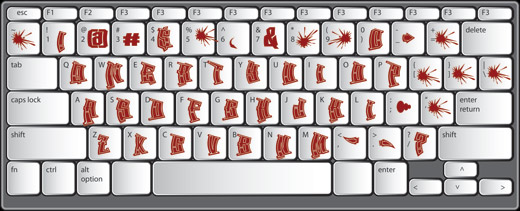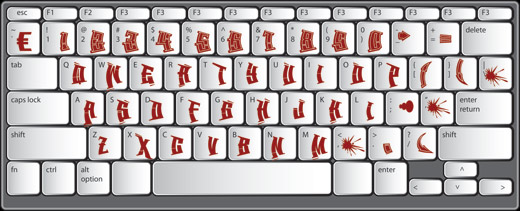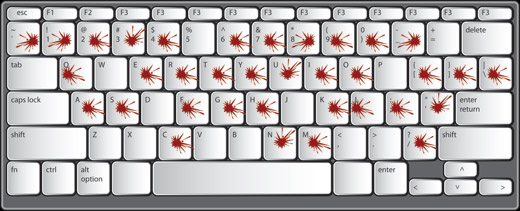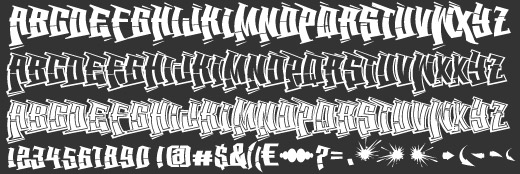
The BackSpin family incudes 3 typefaces:
BackSpin Regular (fill)
BackSpin Outline
BackSpin College
All three of these styles can work independently or you can combine them to create various fill & outline effects. Each font includes several arrows, splatters & symbols. |